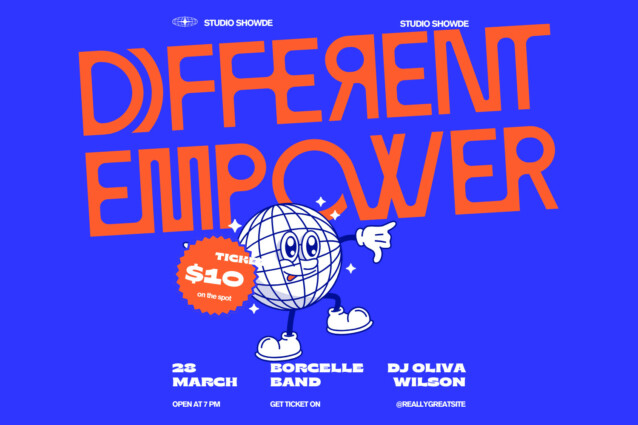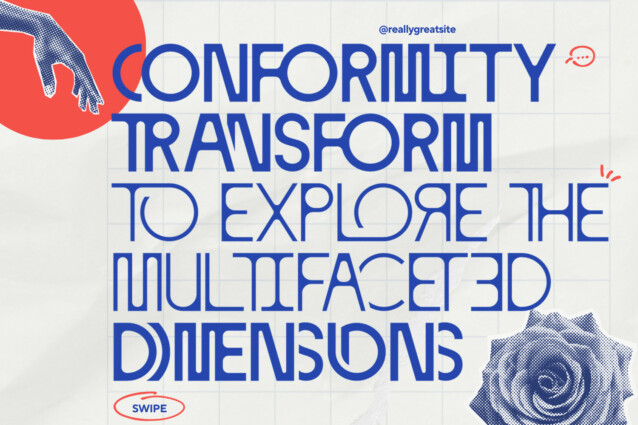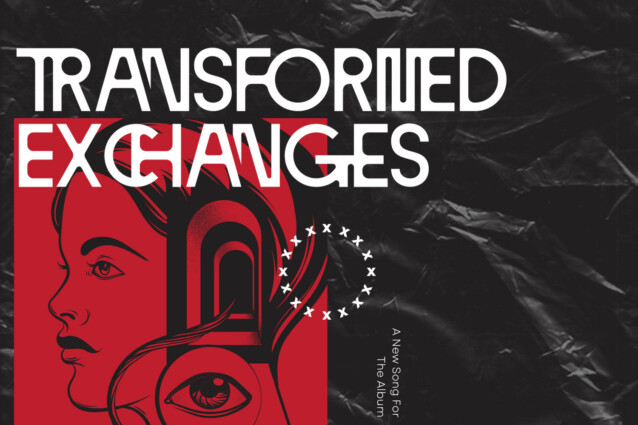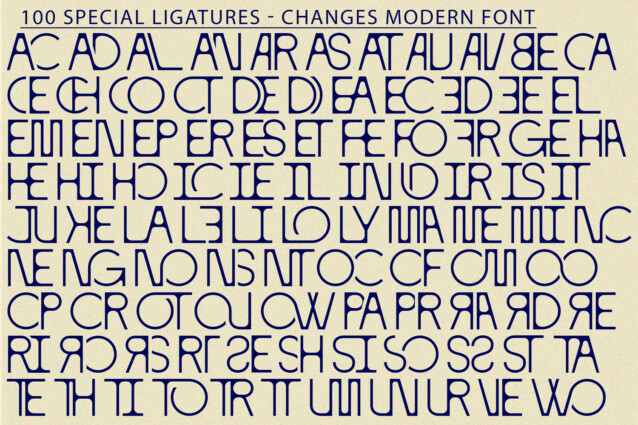
Changes Modern Font
Changes Modern Font is a casual sans that is the perfect combination of strength & play. It’s a reverse contrast typeface with a modern and clean look. With use the sharpness of the eyes, and remain logical, so that balance is maintained in each form. So, it will get a clean, neat, and perfect shape. This typeface provides a timeless look for any design. Use it for branding, magazine design, logo design, headlines, posters, packaging, cards or your wedding invitation.
CHANGES MODERN was built with OpenType features and includes 100 ligatures, alternate, numbers, punctuation, and it also supports other languages.
AC AD AL AN AR AS AT AU AV BE CA CE CH CO CT DE DI EA EC ED EE EL EM EN EP ER ES ET FE FO FR GE HA HE HI HO IE IC IL IN IO IR IS IT JU KE LA LE LI LL LO LY MA ME MI NC ND NE NG NO NT NS OC OF OM ON OO OP OR OT OU OW PA PR RA RD RE RI RO RS RT SE SH SI SO SS ST TA TE TH TI TO TR TT UM UN UR VE WI WO